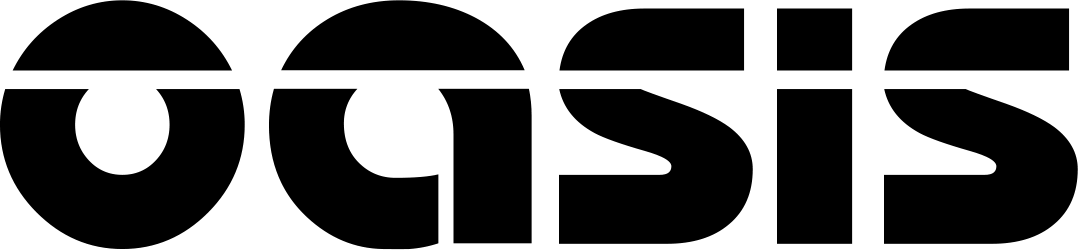
Oasis Font
Oasis is a techno font that is designed in a sci-fi style and supports a combination of uppercase and lowercase letters. Its characters are not uniformly straight and consist of two or three different parts, so it can convey a sense of innovation, dynamic, modernity, and futurism to the audience.
This font can be used to design the user interface of video games, digital banners, applications, and social media posts.